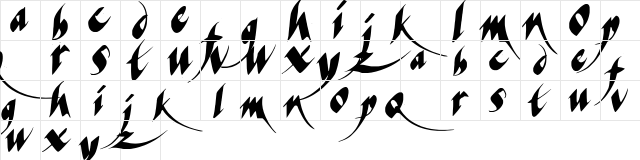
I Can See You Regular
Design Context for I Can See You Typeface
I Can See You is a composed and adaptable typeface that performs quietly and consistently across a wide range of design contexts.